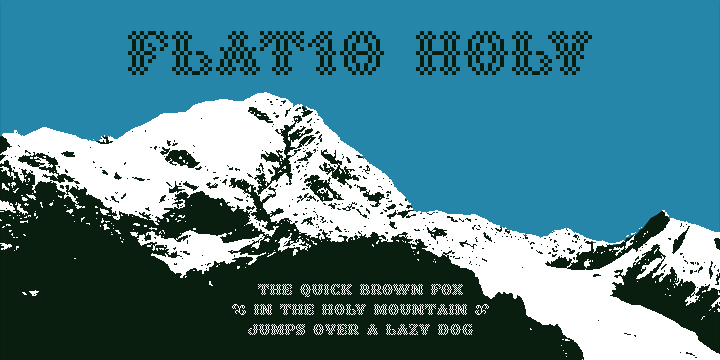
First seen on MyFonts: September 28th, 2006 Flat10 Holy is a pixel font for flash and other graphic images for display. It should be used at size 10 pixels or multiples of 10 (20, 30, etc,). Not quite what you’re looking for? Try looking at more fonts like this. ‘Flat10 Holy’ is a trademark of Flat-it. |